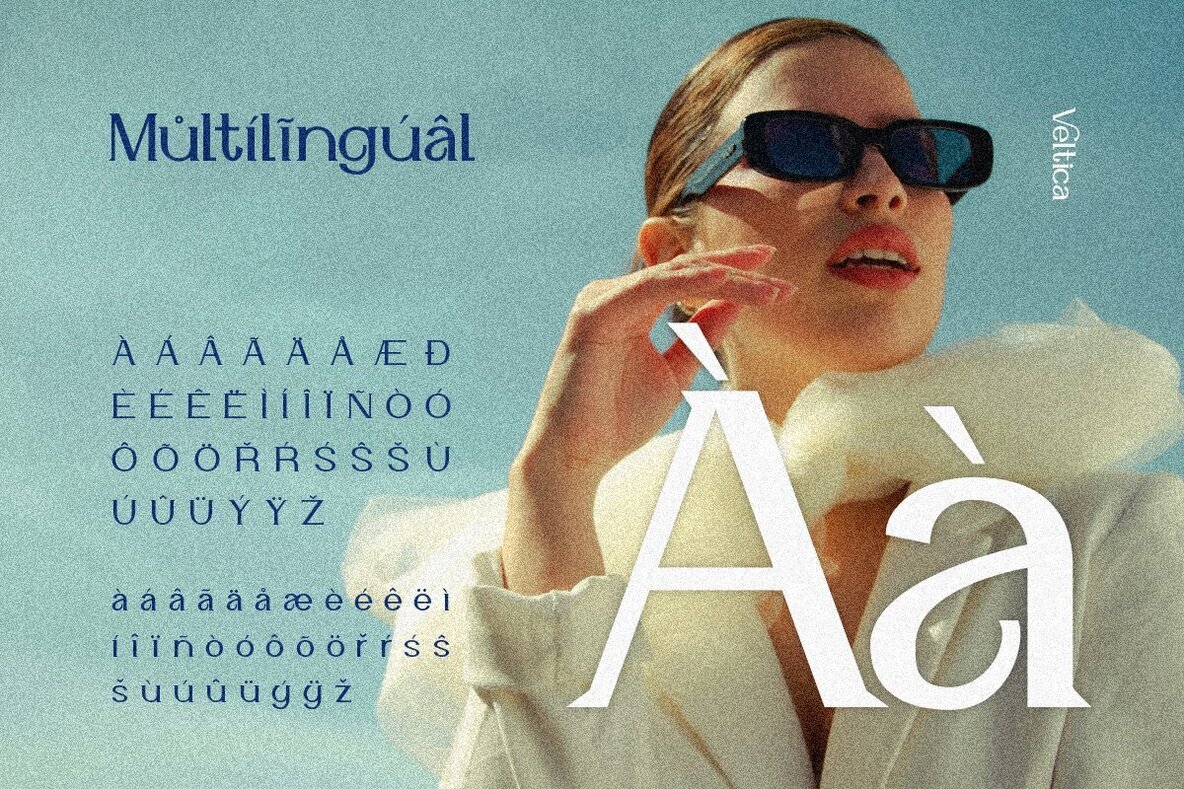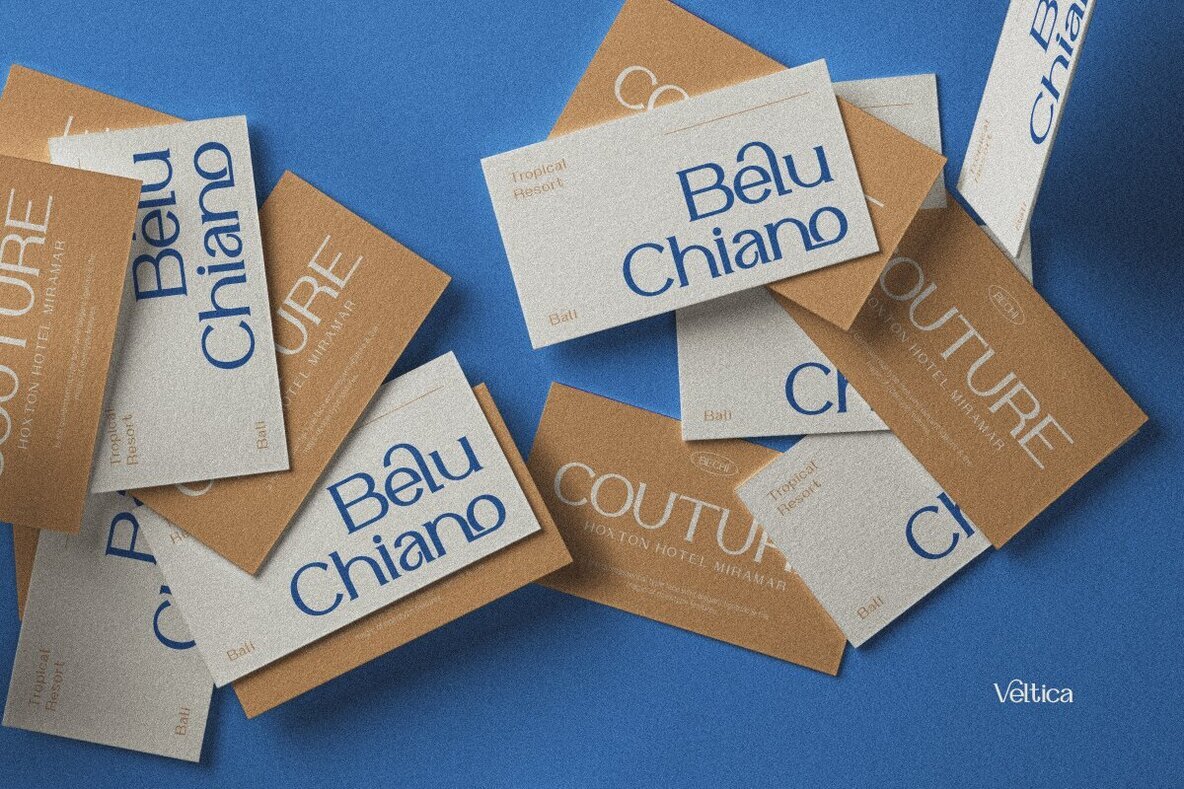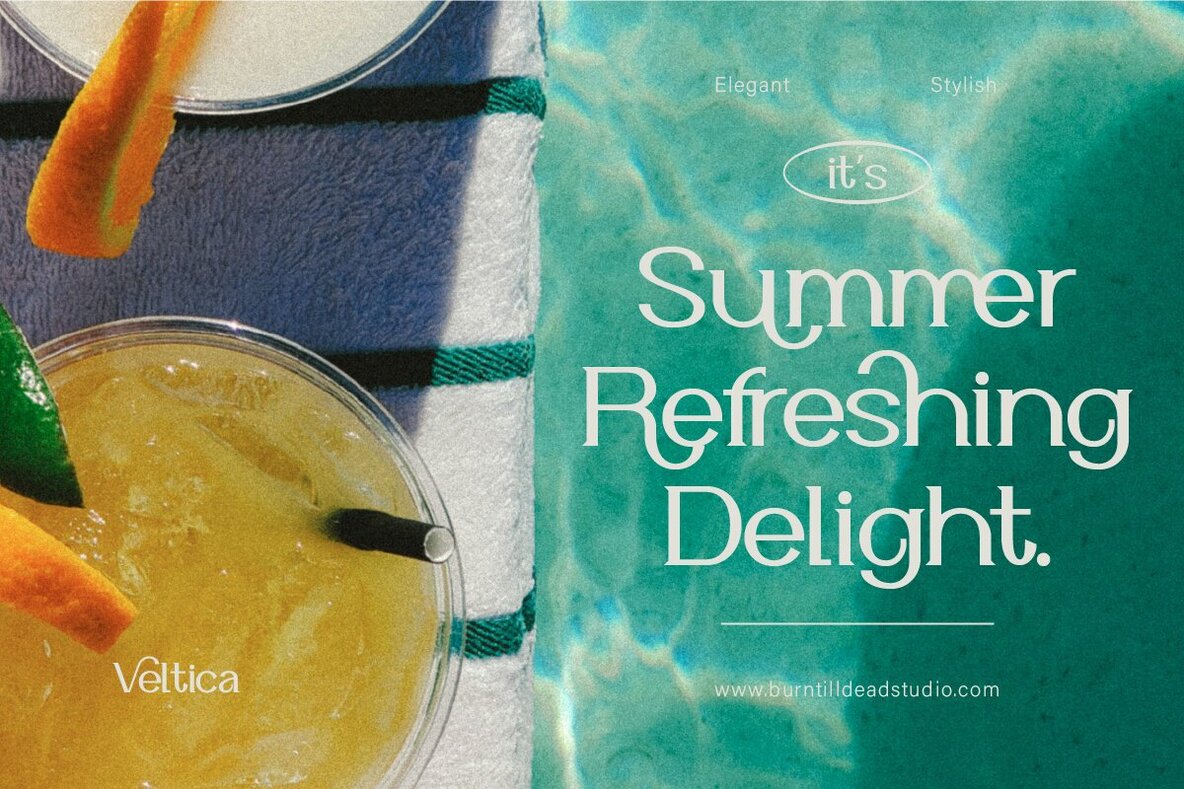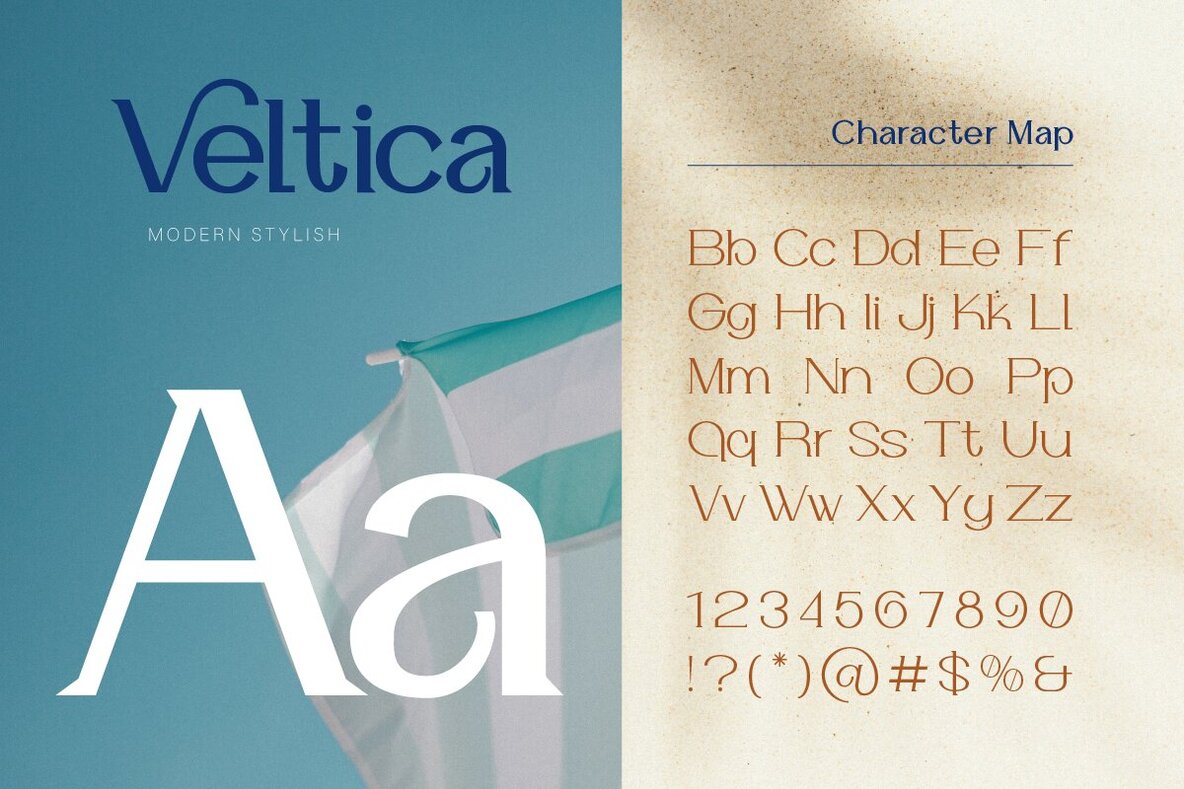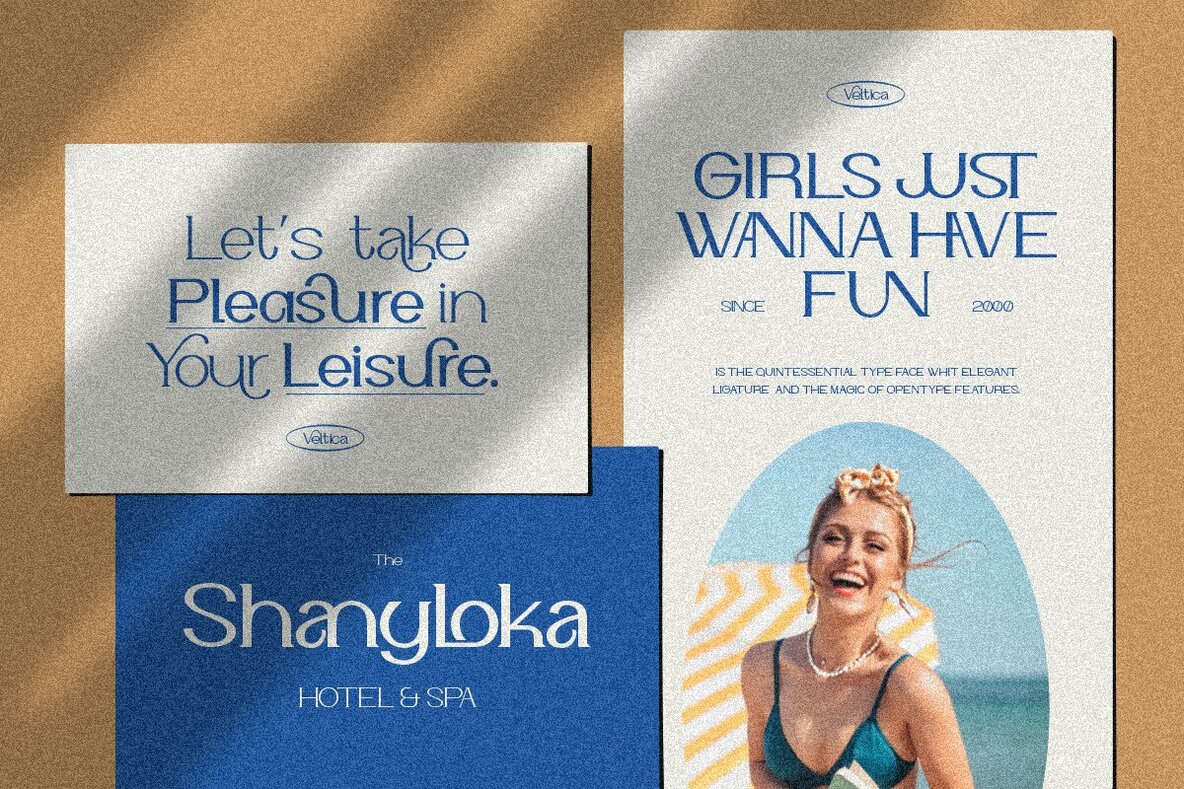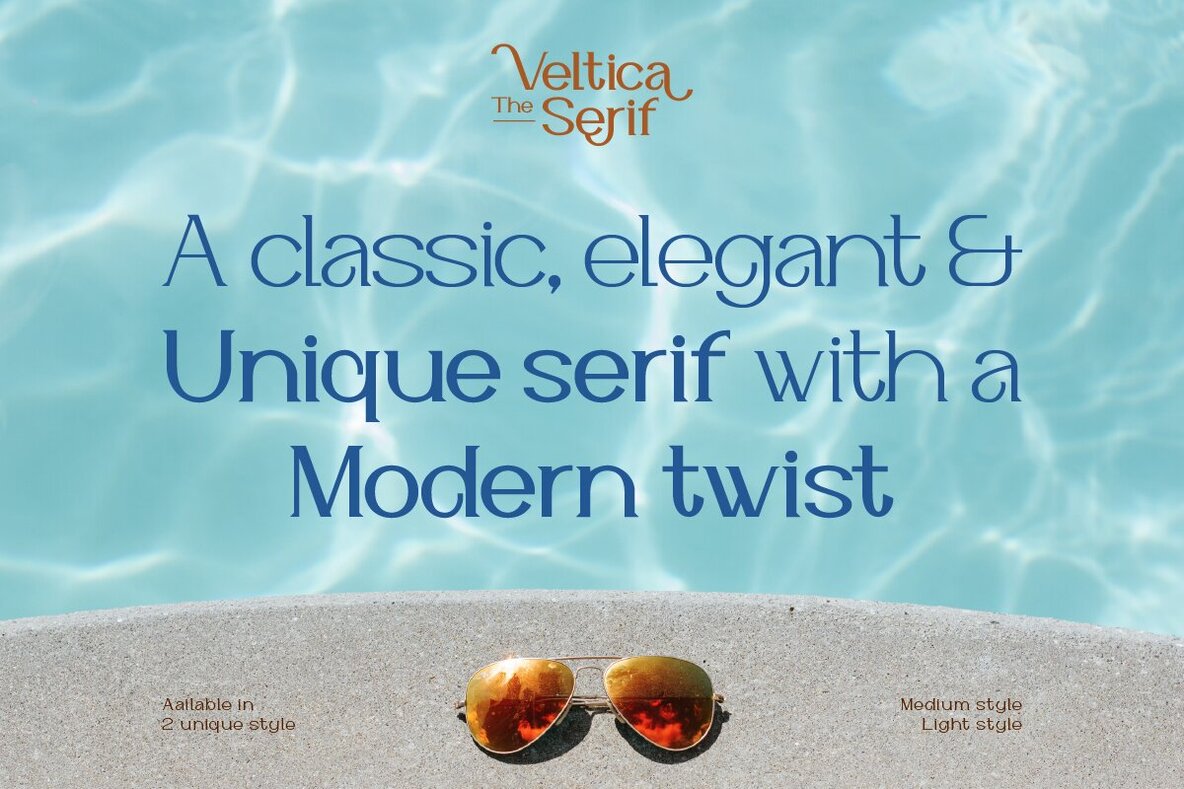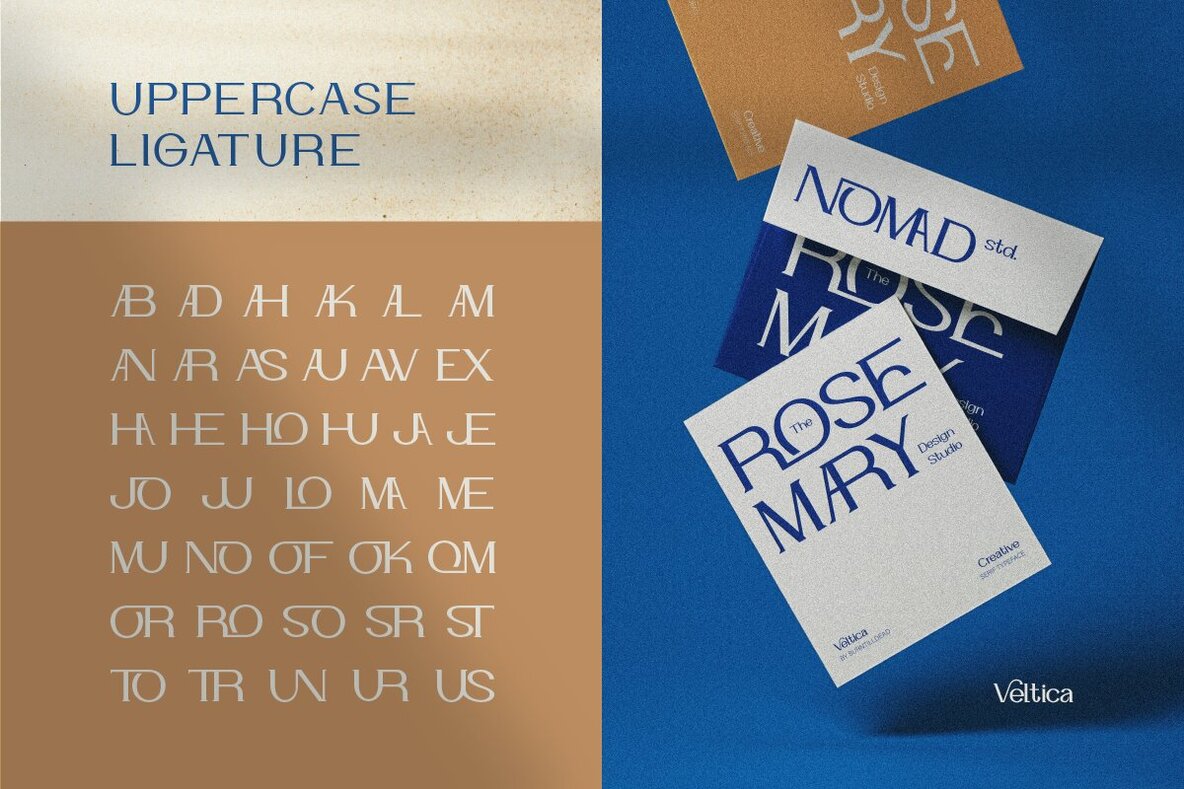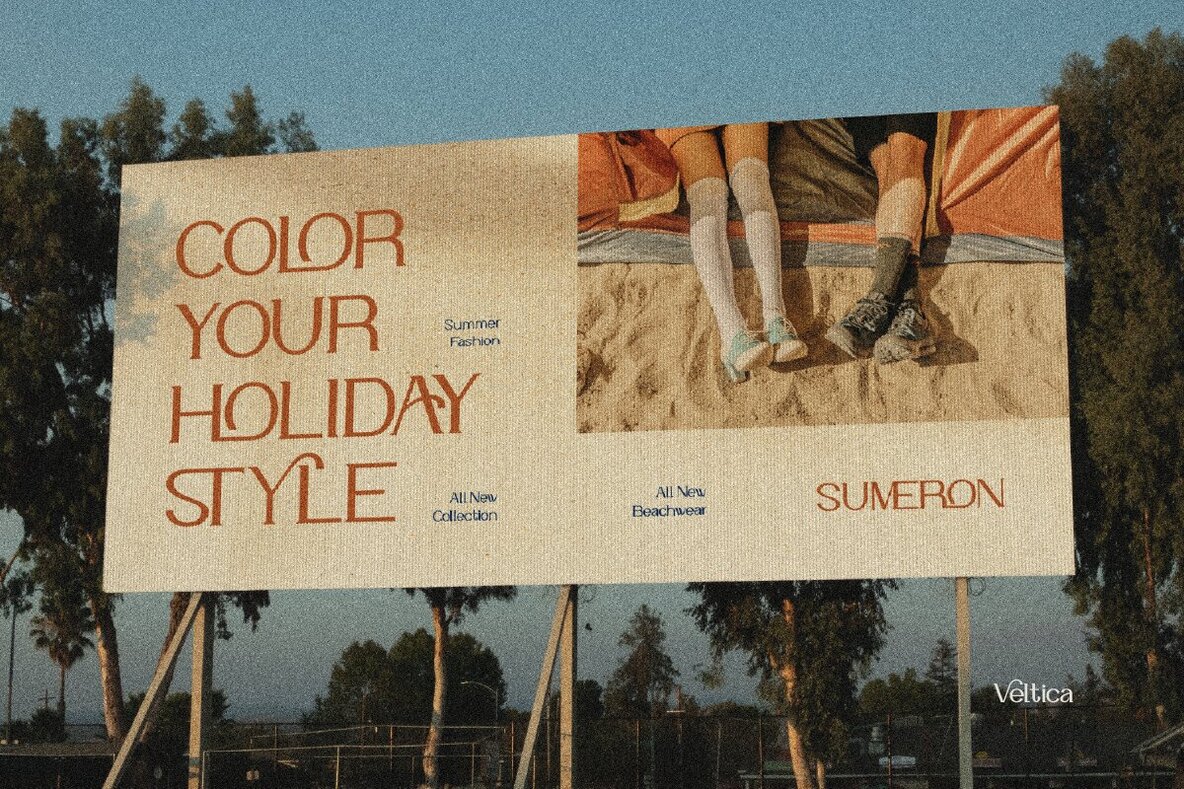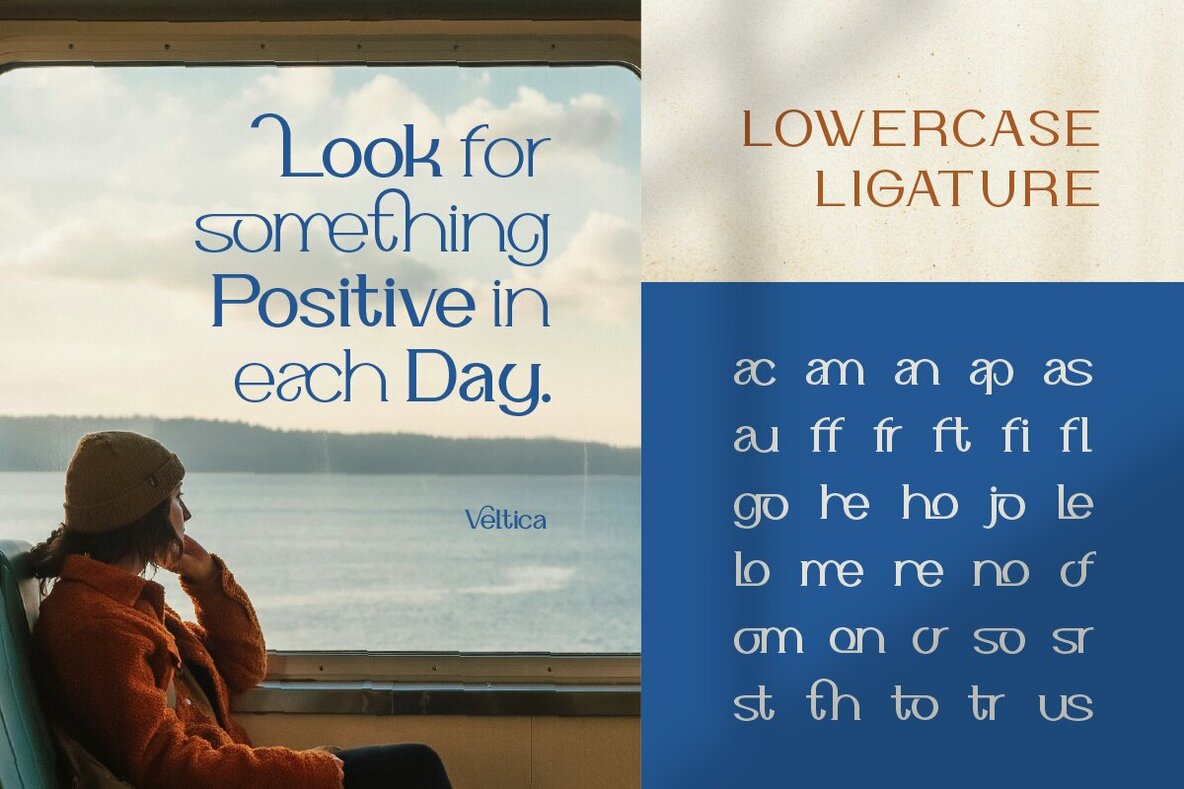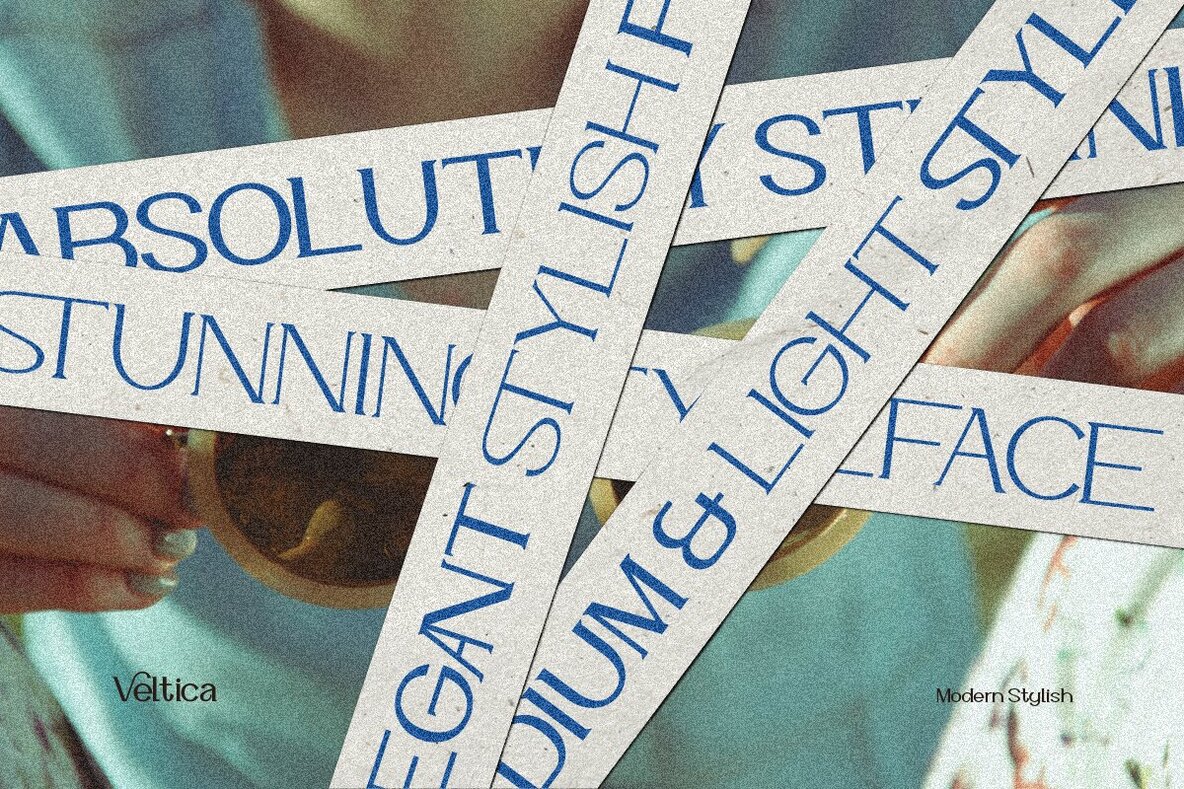
Veltica Font
Veltica Light
Veltica Medium
Veltica is a modern serif that combines classic elegance with a unique twist. With clean lines and sophisticated curves, Veltica adds a touch of refinement to any design project. Ideal for branding and editorial layouts, it comes in both light and medium styles, ensuring versatility and adaptability in various applications.
This serif font includes a complete A-Z set, numbers, punctuation, alternates, ligatures, and supports multiple languages. These features make Veltica a comprehensive choice for designers looking to infuse their projects with a modern yet timeless aesthetic.